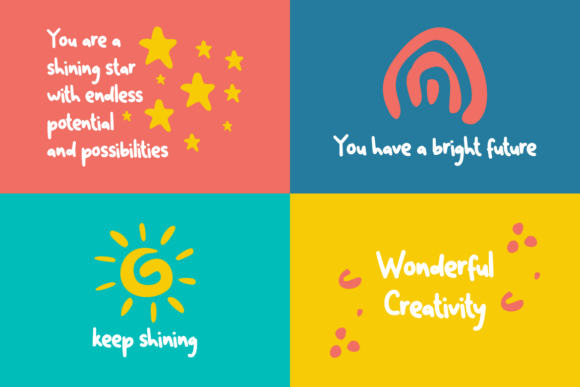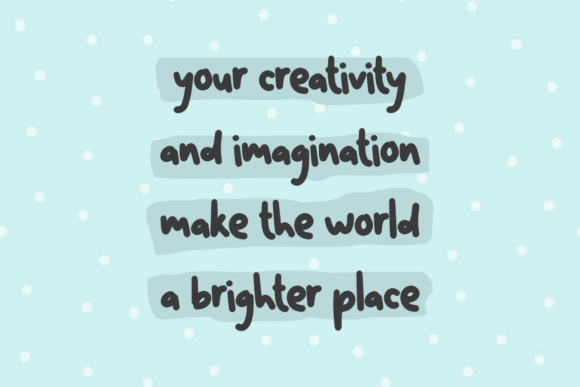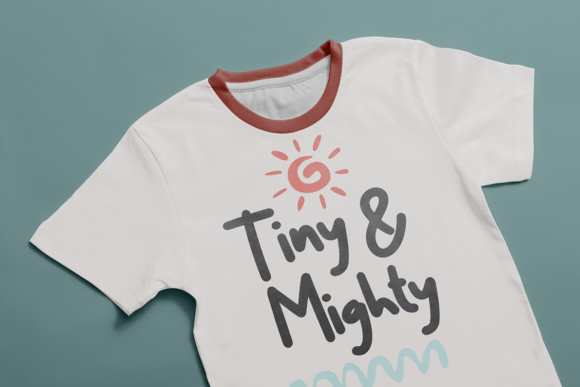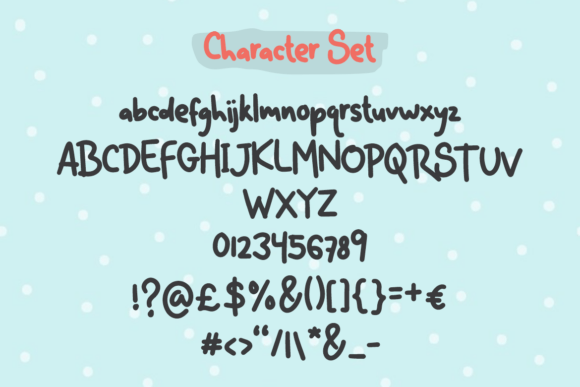
Introduction to Gloppy Bump Font
Introducing GloppyBump – Cute Bold Font, a delightful typeface that brings a playful elegance to any design.
With its quirky scribble style, GloppyBump is perfect for those seeking a unique and eye-catching typeface The bold, sketch-like characters are reminiscent of childhood creativity, making it an ideal choice for projects related to children or crafting.
Key Features of Gloppy Bump Font
Why Choose Gloppy Bump Font?
Gloppy Bump Font offers exceptional quality and versatility, making it a valuable addition to your design toolkit. Whether you’re creating for personal projects or commercial use, Gloppy Bump Font delivers professional results.